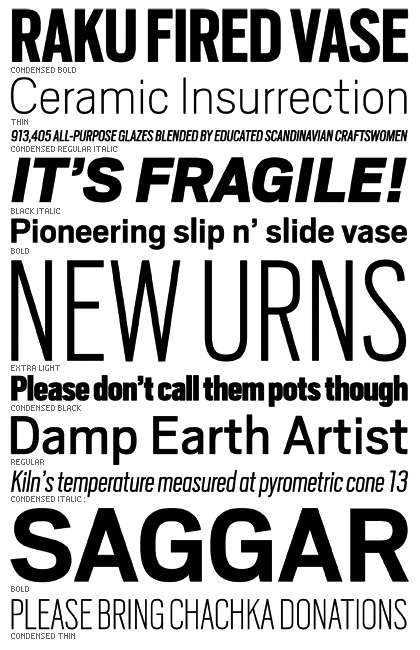
Scout (Font Bureau)
A fresh new sans serif, something always useful, Scout (and a
related logotype) was drawn by Cyrus Highsmith, a senior type
designer at Font Bureau, for Geraldine Hessler’s 2006 redesign
of Entertainment Weekly. The 24 style family marks the magazine's
first significant typographic update in a decade. Scout created
a new typographic identity for the magazine with a design that
derives structural elements from both new and old: DIN, Venus,
and Cairoli (a quirky and forgotten Aldo Novarese typeface).
24 Styles: thin, extra light, light, regular, bold, and black with
italics in normal and condensed widths.